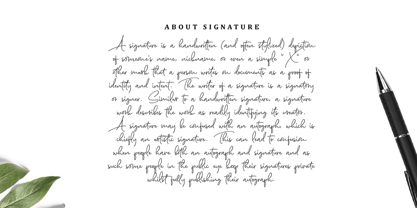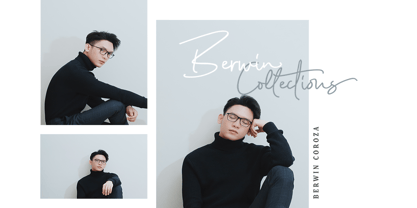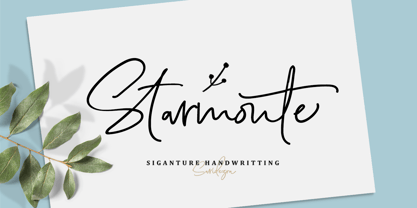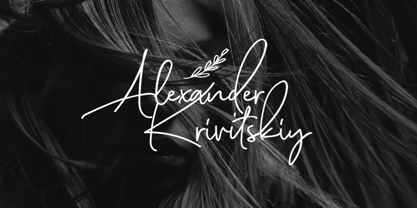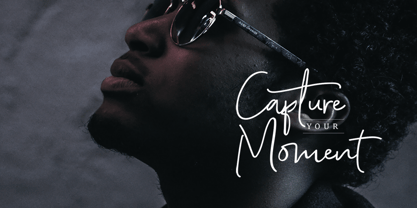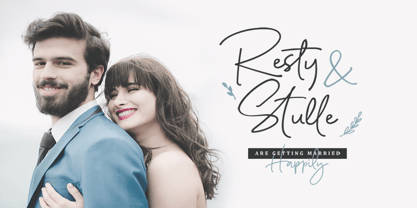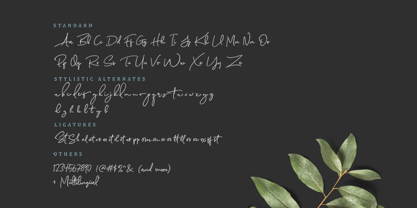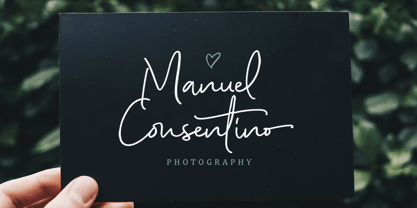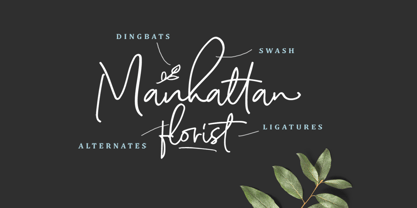
Starmonte
The Starmonte Font Family was designed by Sarid Ezra and published by Sarid Ezra. Starmonte contains 2 styles and family package options.
Starmonte Script is signature that contain lowercase, uppercase, symbol, and also support multi language. There's a lot ligatures in this font. Scarlette Script also comes with doodle font that you can use to make a logo for branding, beautiful fashion design, suitable for wedding invitation, or handwritten quote. Also already PUA Encoded.